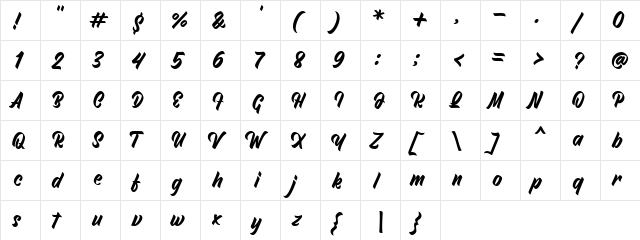
North Roksy Demo Regular
| Foundry | Munerf |
| Designer | Akhmad Misbakhul Munir (Munerf) |
Design Context for North Roksy Demo Typeface
North Roksy Demo is a composed and adaptable typeface that performs quietly and consistently across a wide range of design contexts.